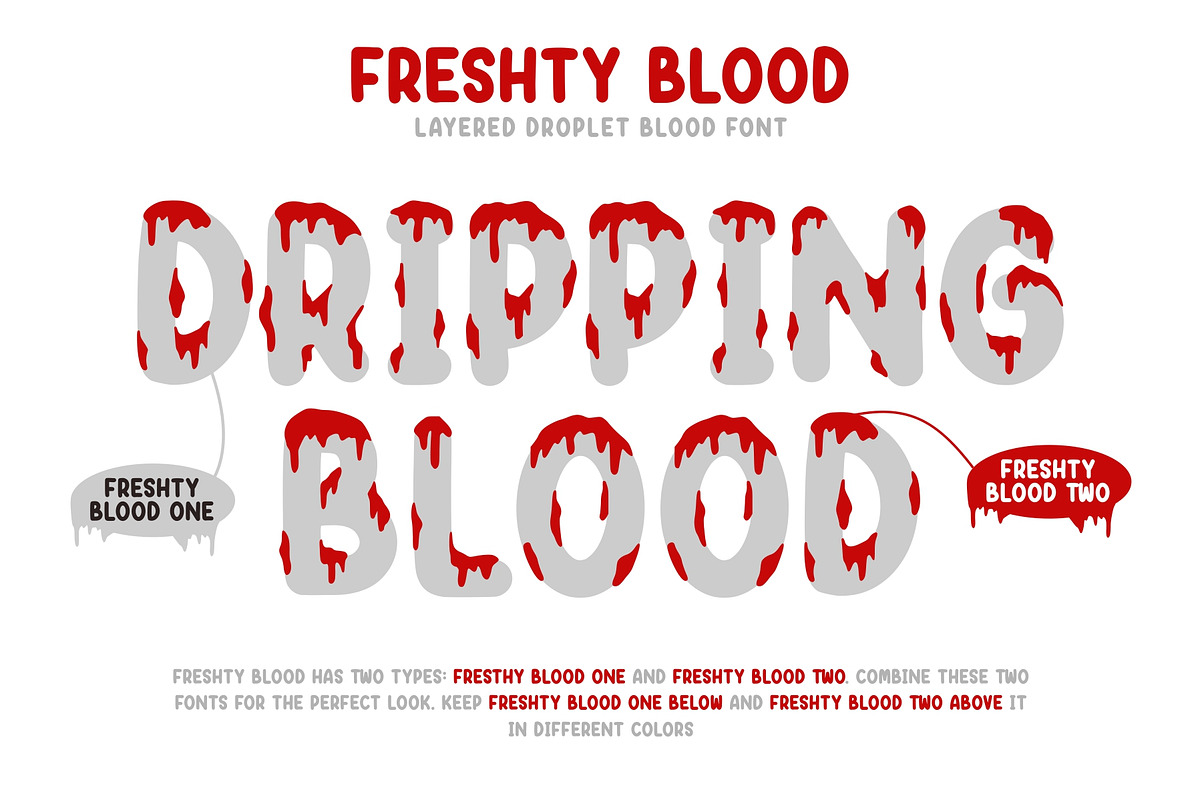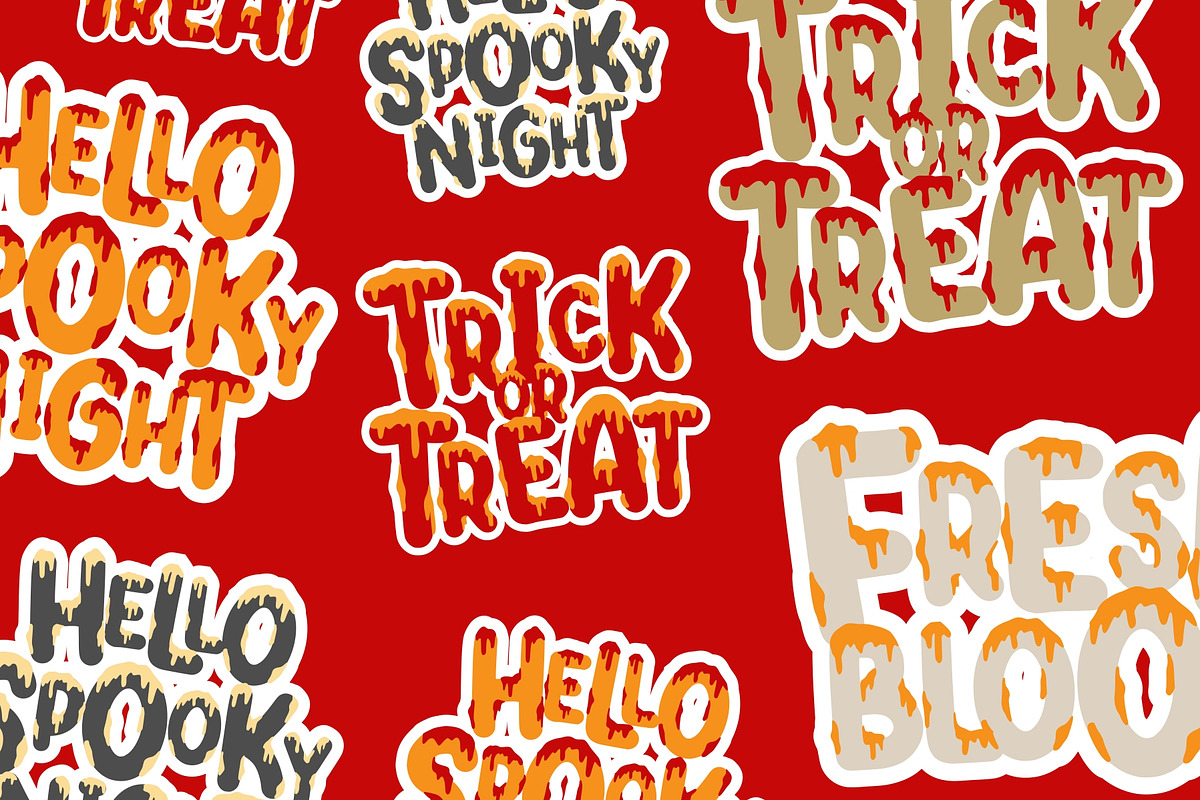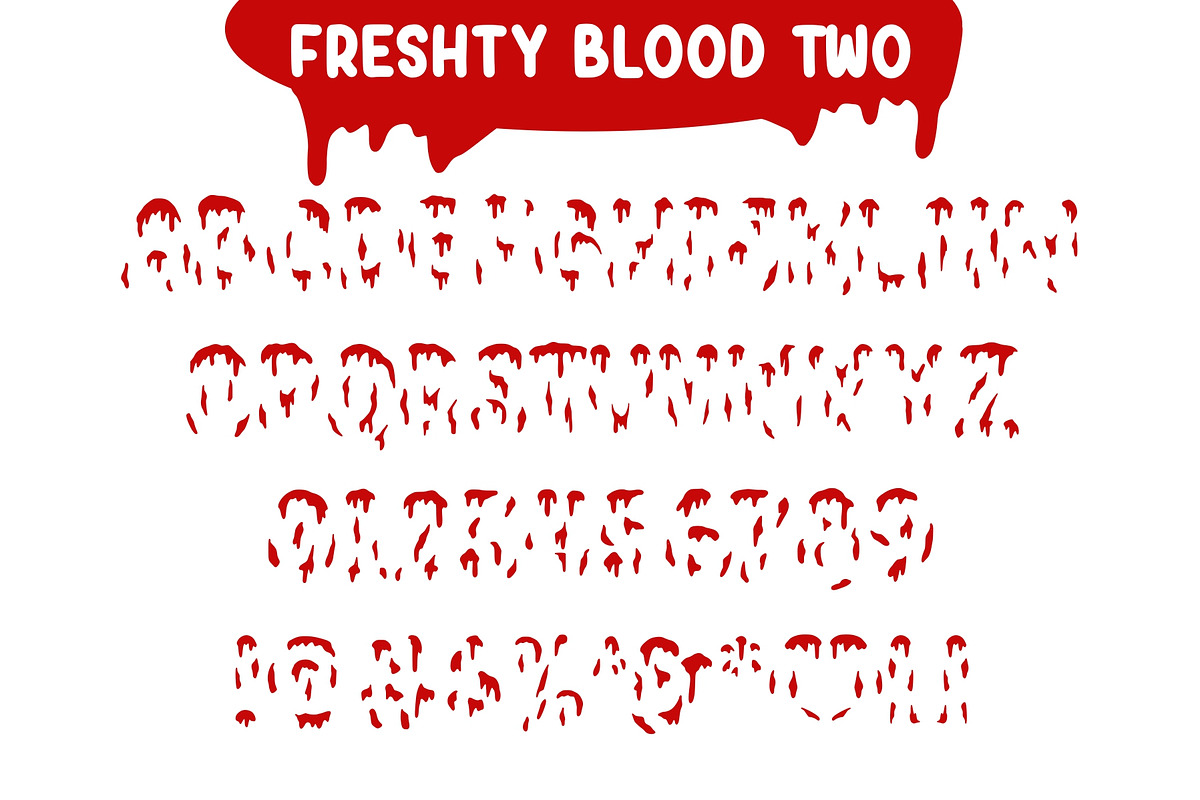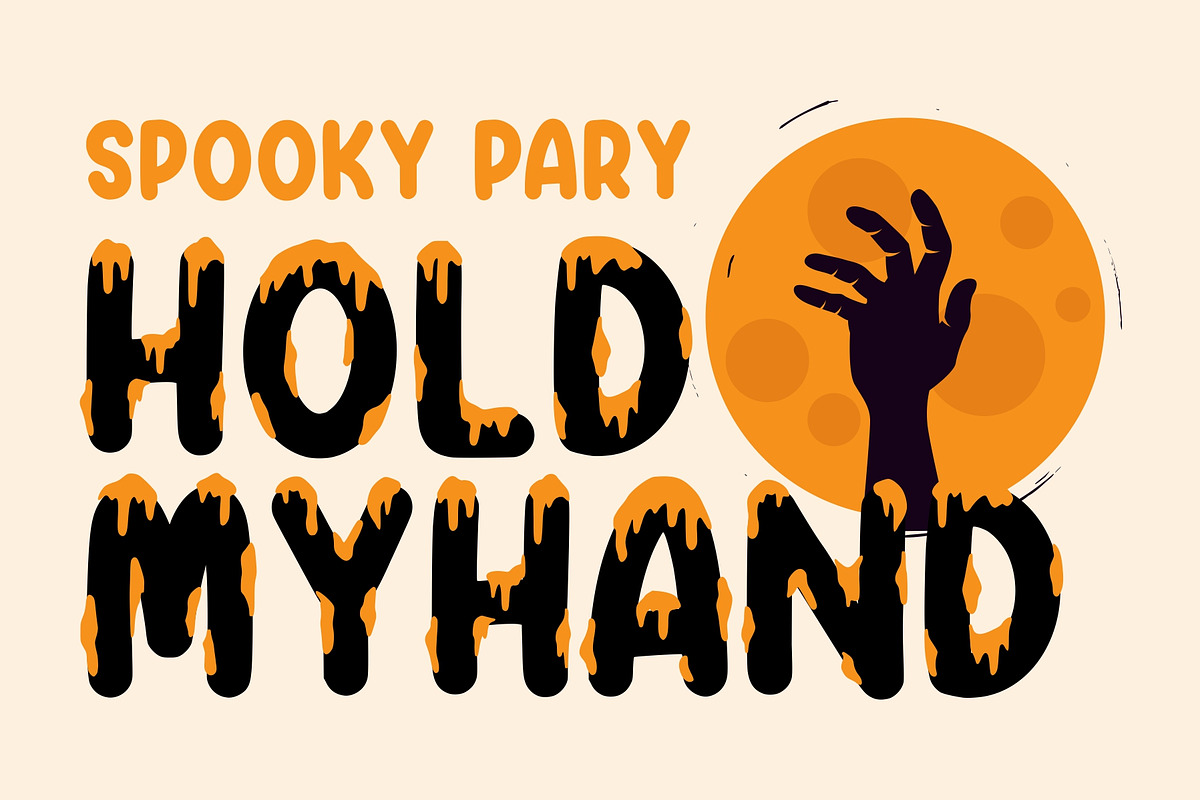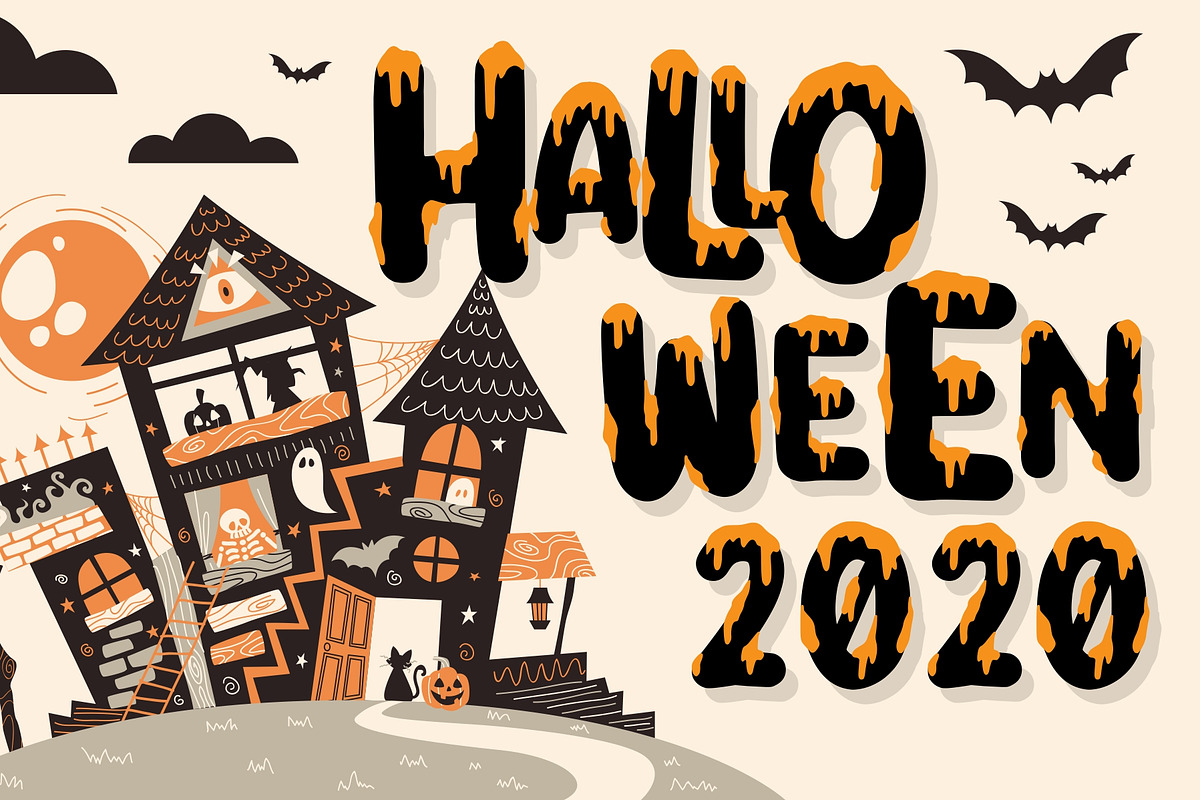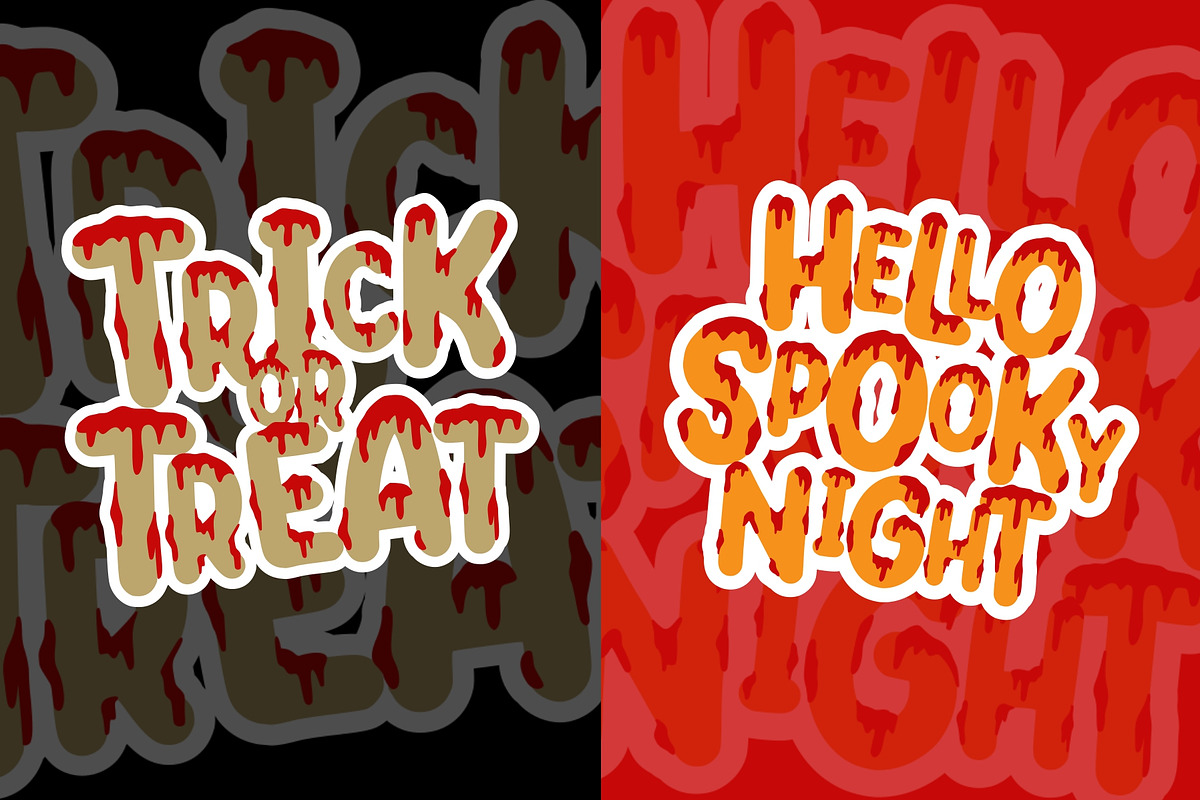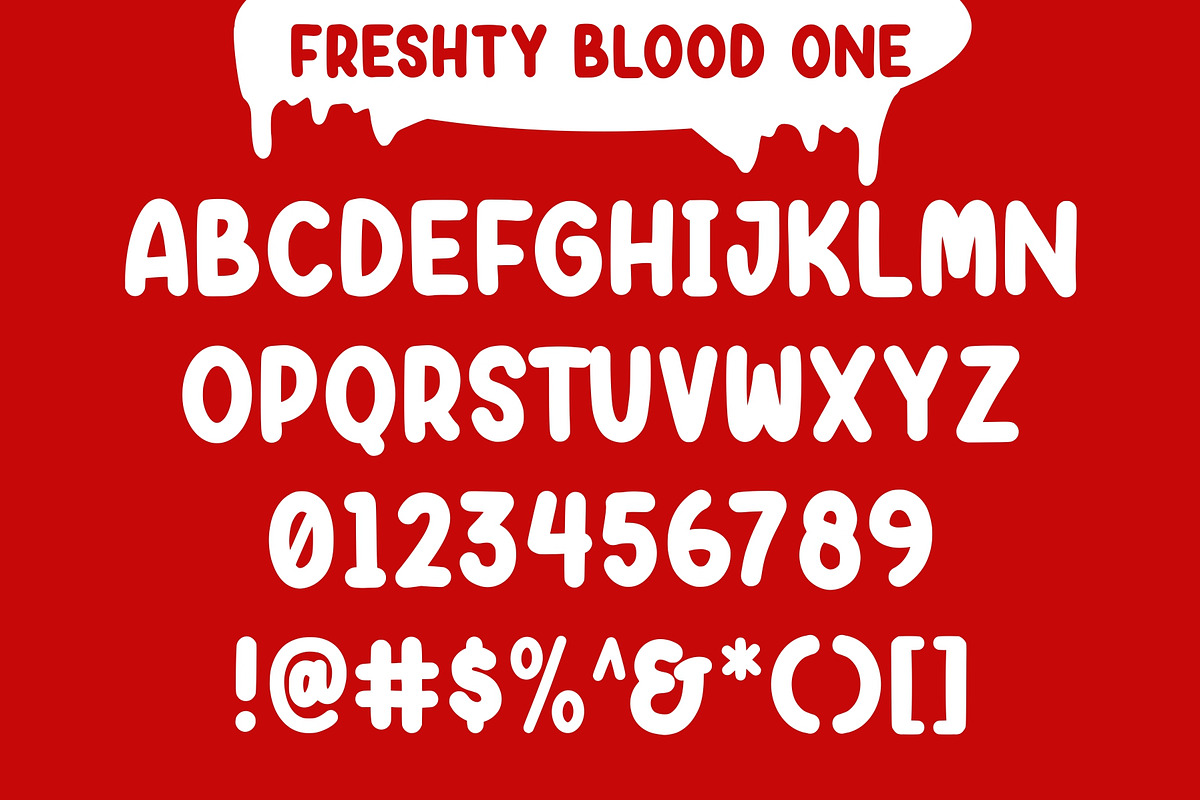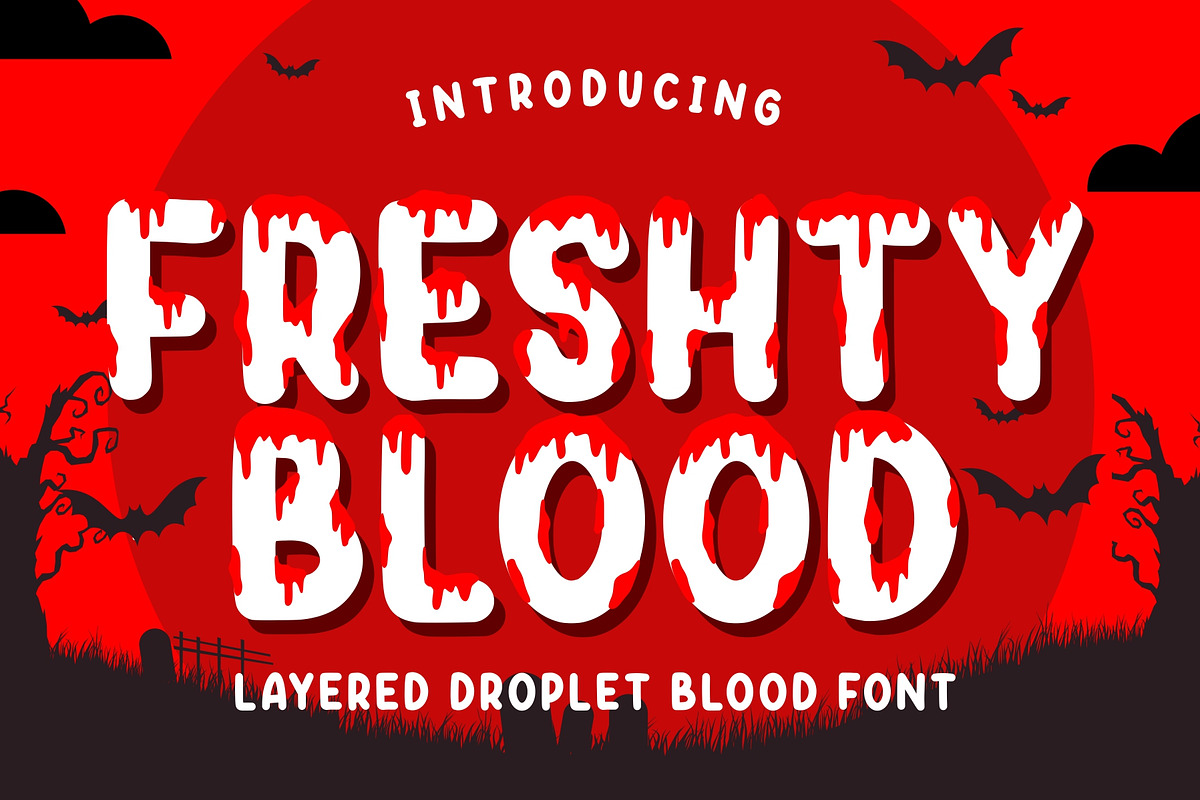
Freshty Blood - Layered Droplet
Freshty Blood Layered Droplate Blood Font is a very interesting font, which has been inspired by Halloween and Spooky art. It is formed from very careful lines with droplet style.
Suitable for any halloween graphic design projects, prints, logos, posters, t-shirts, packaging and applicable for some types of graphic design. Freshty Blood is compatible with any software without any pain.
Freshty Blood Features :
- Unique Ligatures
- Multi-Language Support with accent
- Numeral and Punctuations